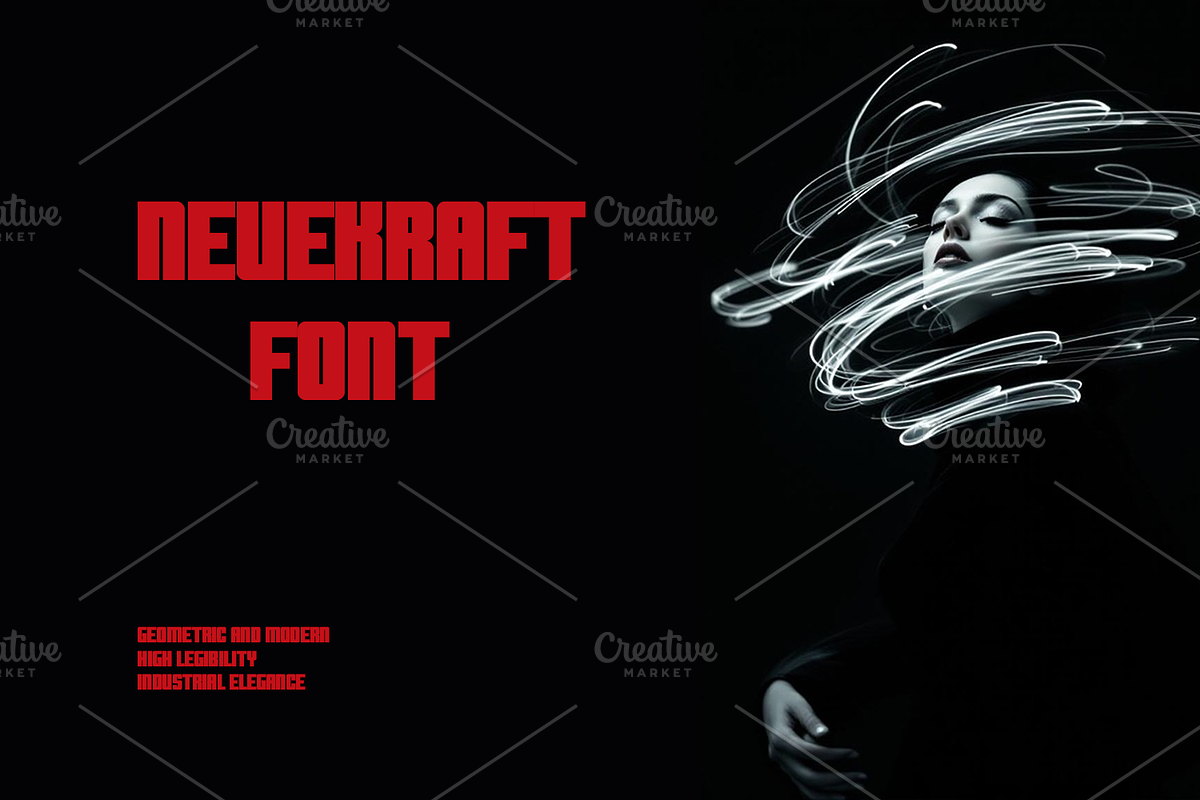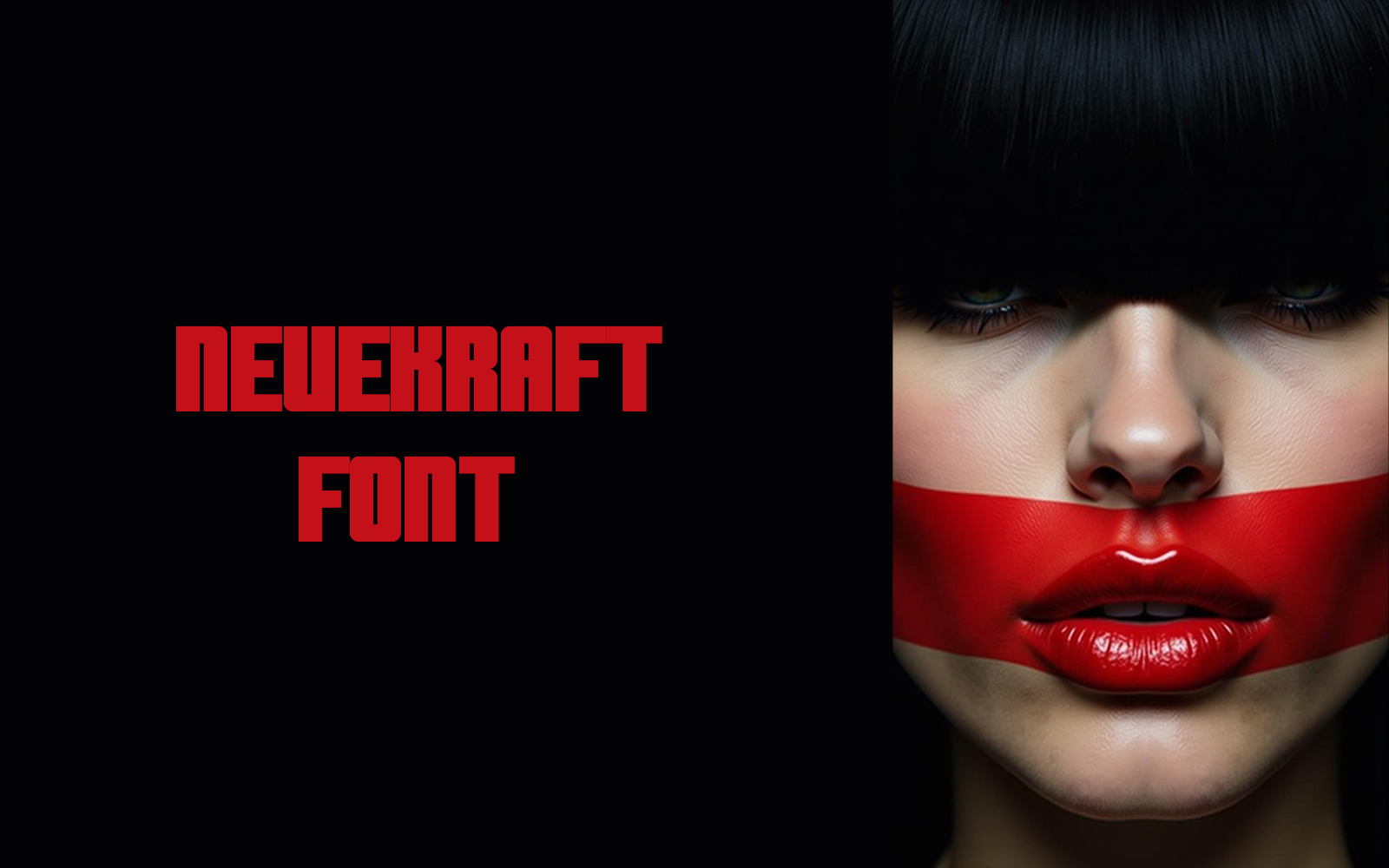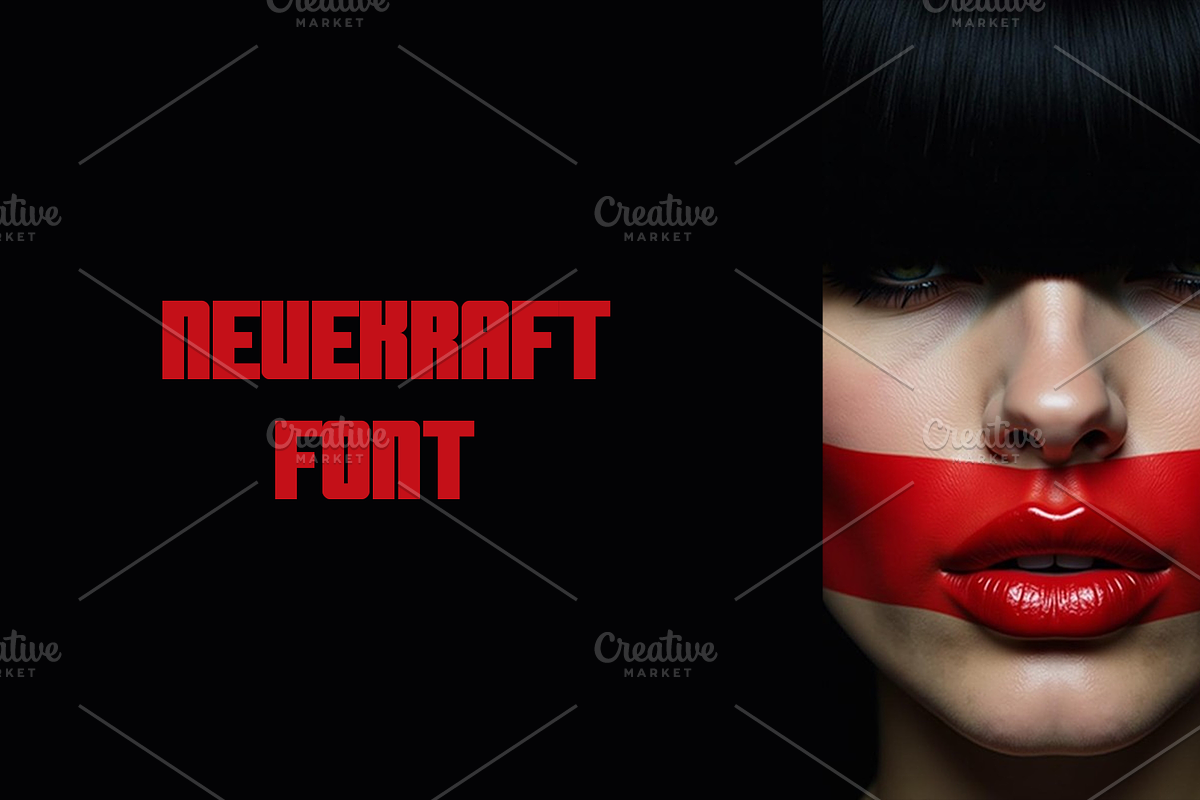
🎯 Introducing NeueKraft — Where Precision Meets Imagination.
Bold like industry. Clean like code. Expressive like design.
NeueKraft isn’t just a font — it’s a visual engine of clarity and creativity. Forged in the spirit of modernism, it blends engineered geometry with artistic soul, making it the perfect weapon for branding, tech interfaces, editorials, and cutting-edge campaigns.
✅ Ultra-legible at any scale
🎨 Sharp yet sophisticated aesthetics
🛠️ Built for creators, thinkers, and disruptors
🚀 Unleash bold ideas. Shape modern narratives. With NeueKraft, type isn't just seen — it's experienced.